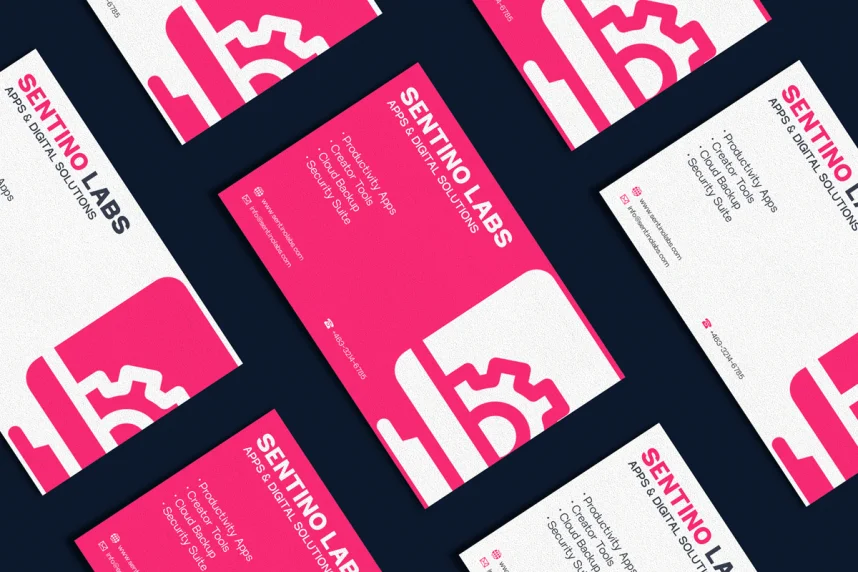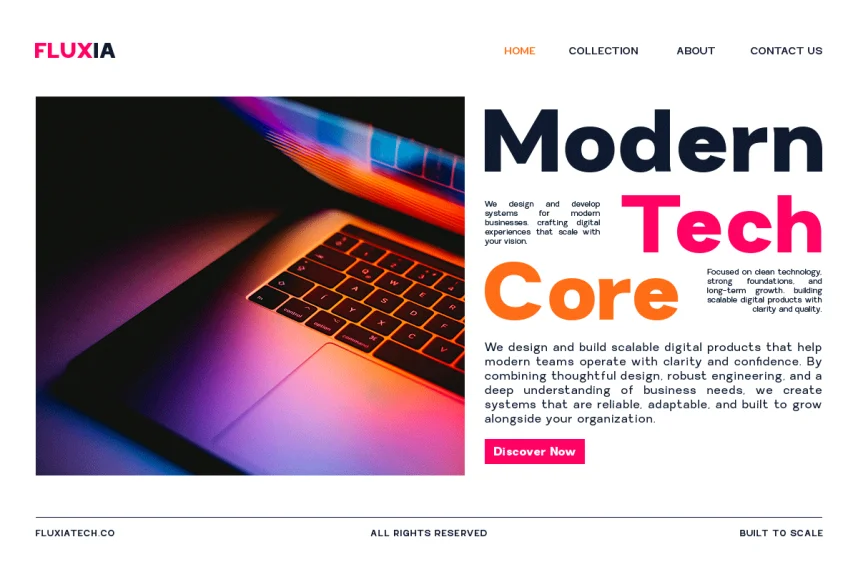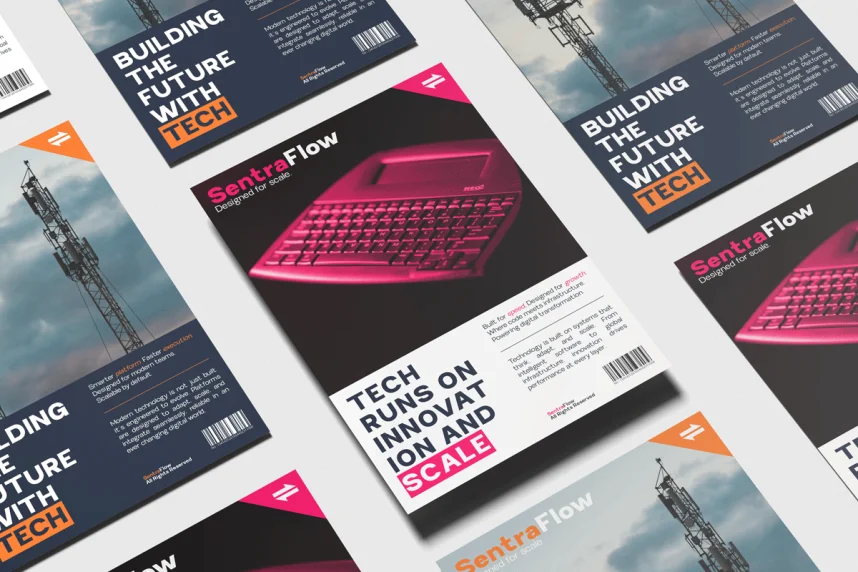
RCL Sentino Font is a modern sans-serif typeface built for clarity and consistency across digital interfaces. Designers often struggle with fonts that lose readability on screens. RCL Sentino addresses this by using clean shapes and stable spacing.
This font belongs to the sans-serif category. Its letterforms show uniform stroke width, open counters, and minimal decorative elements. These features improve legibility in UI design and responsive layouts. The font maintains consistency across different weights and sizes.
RCL Sentino is suitable for UI design, web design, branding systems, mobile applications, and corporate websites. It also works well for body text where clarity is essential. Designers commonly pair it with a serif or display font for headings.